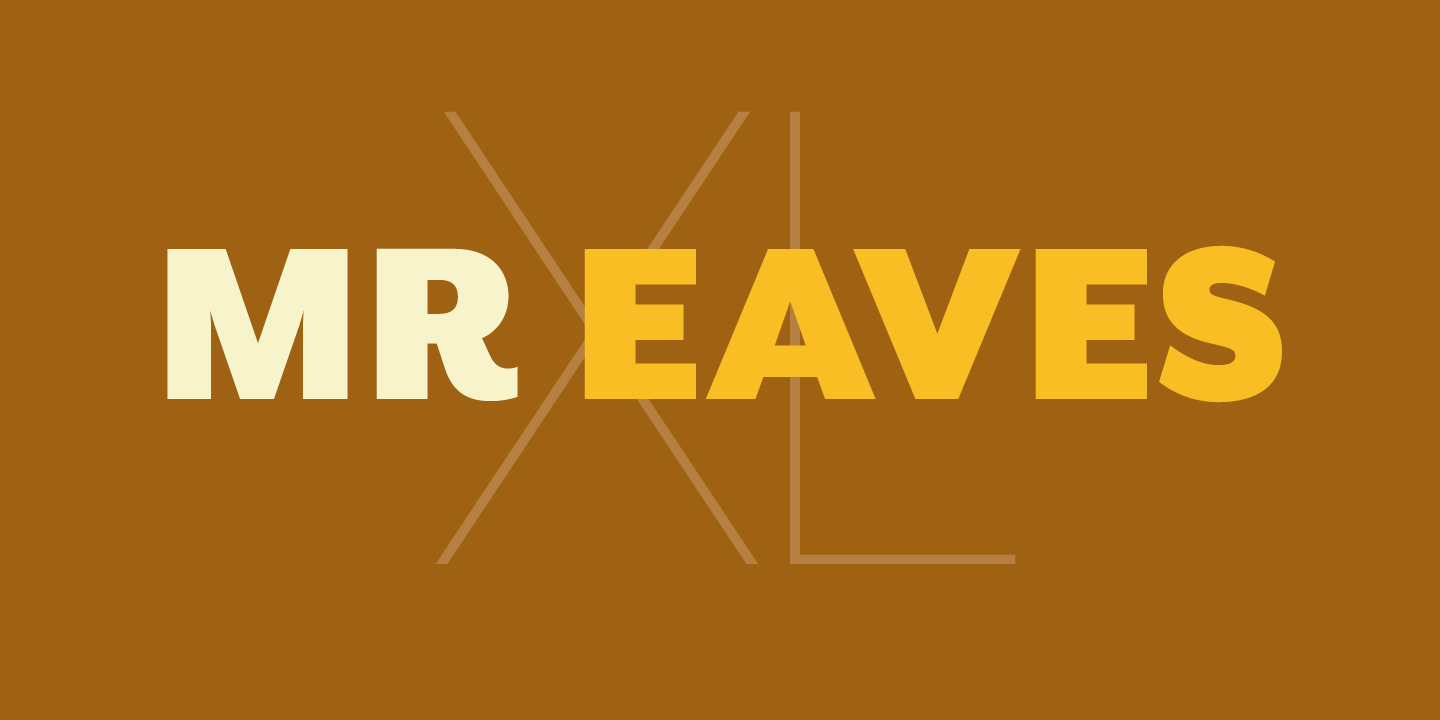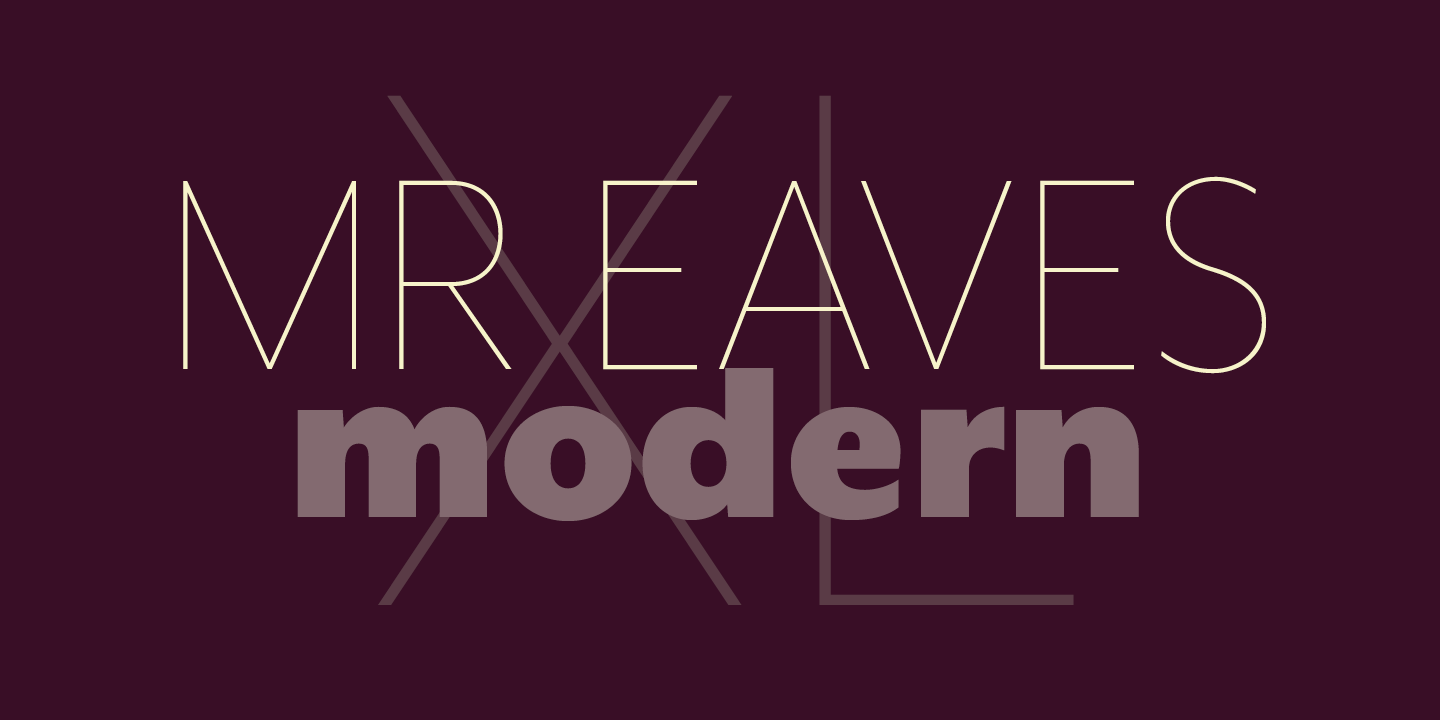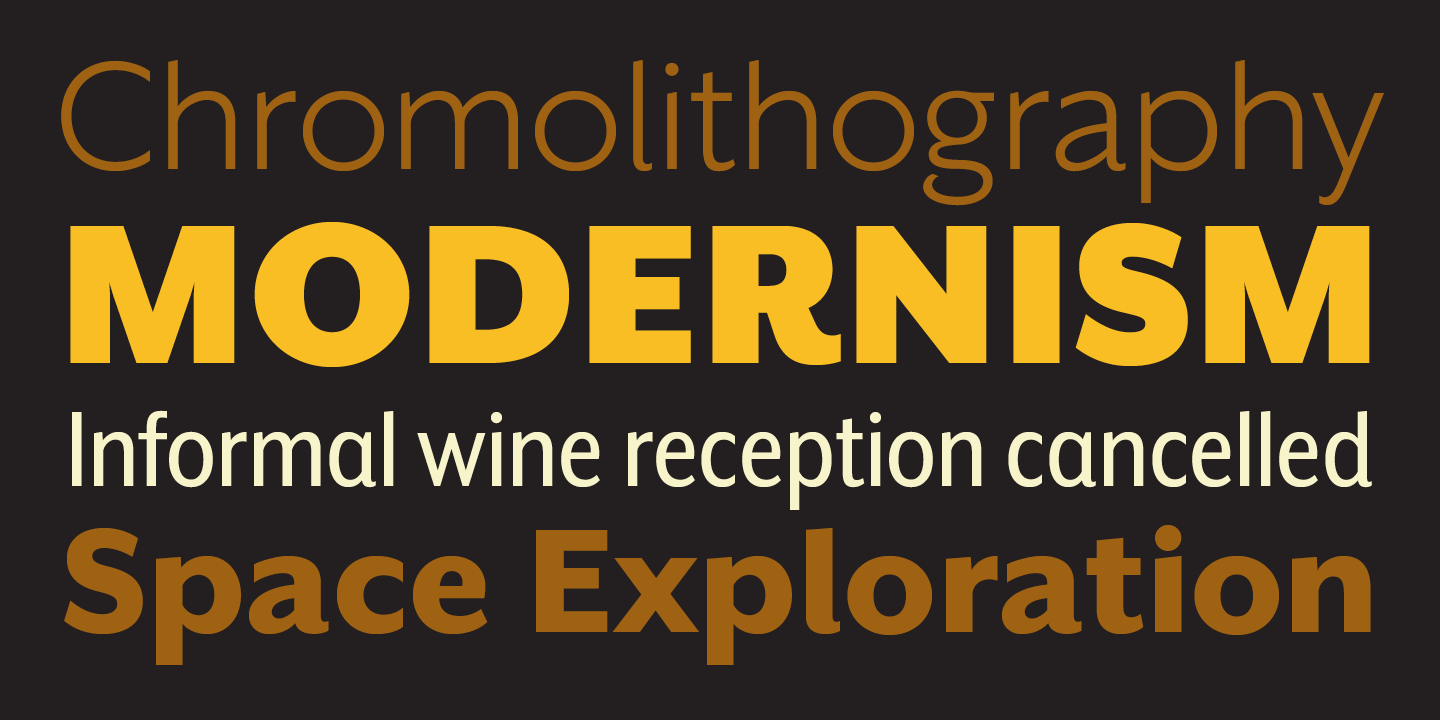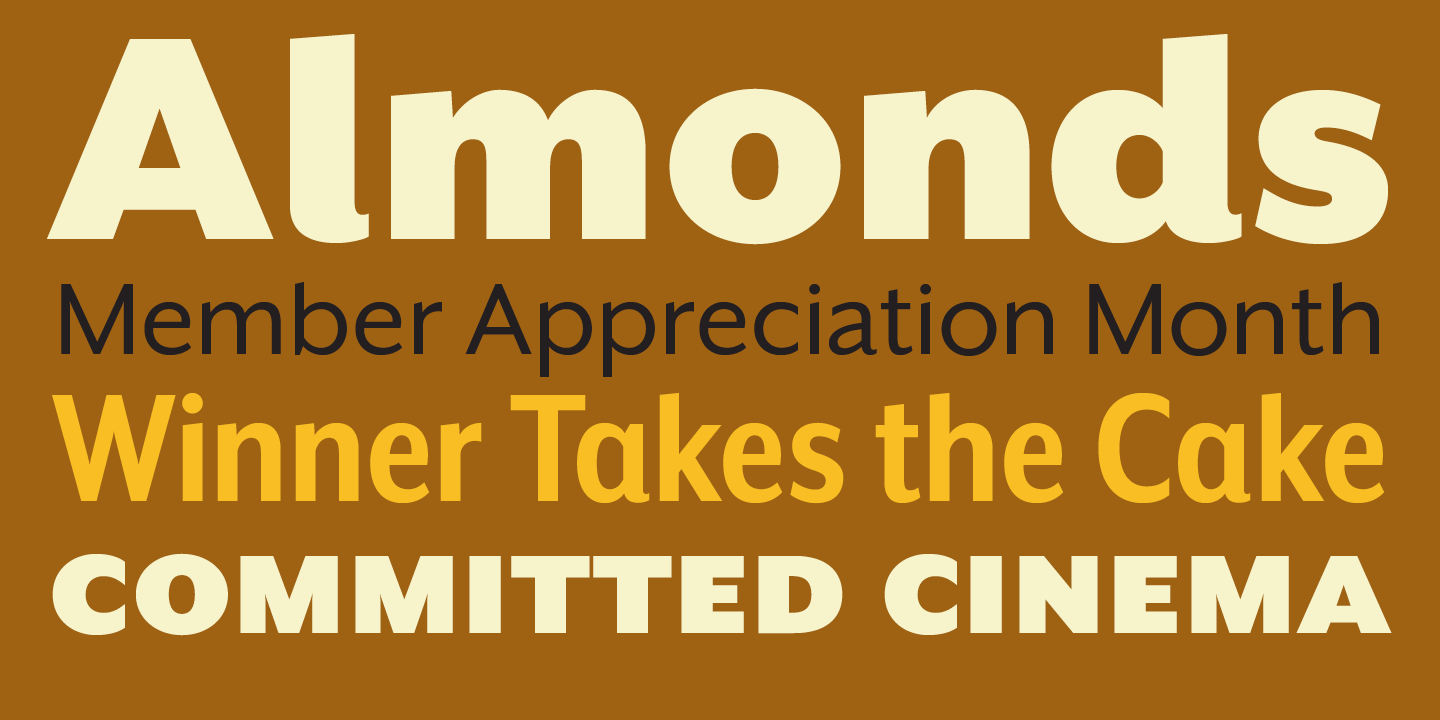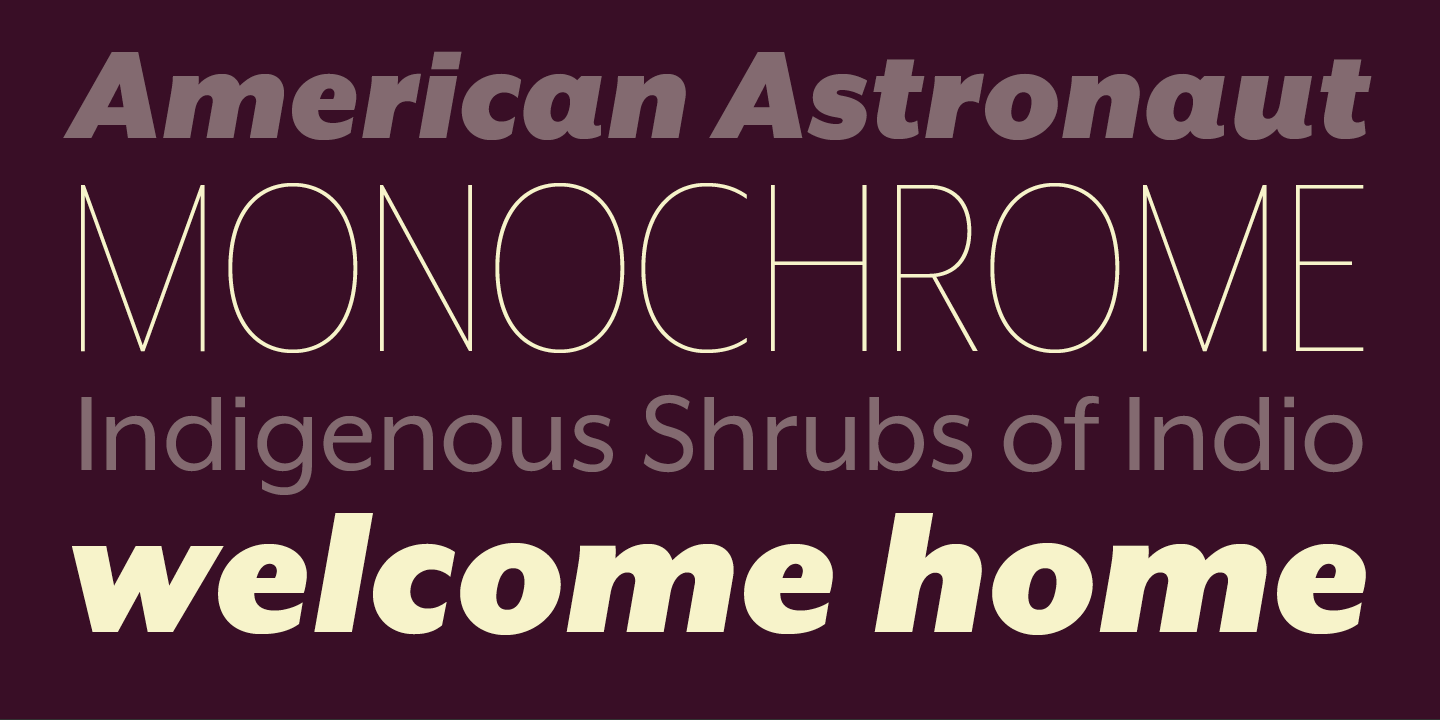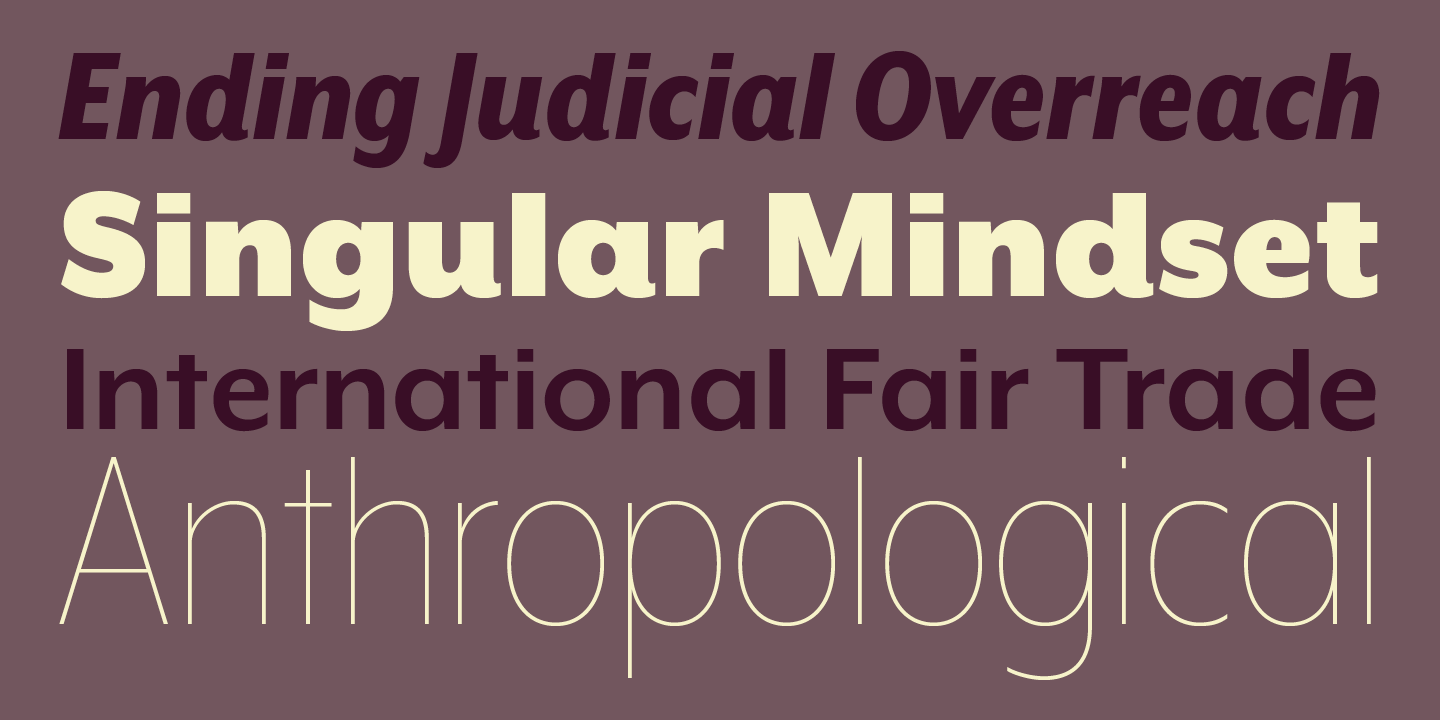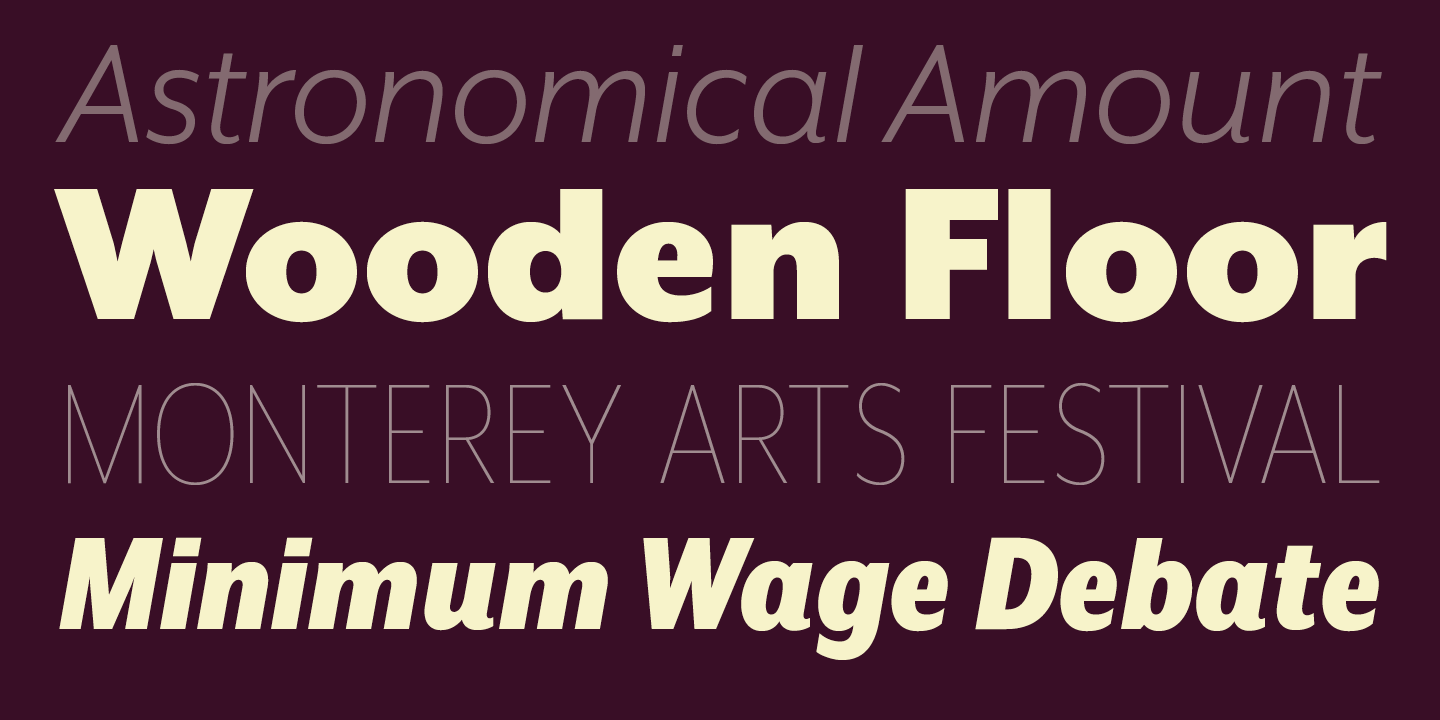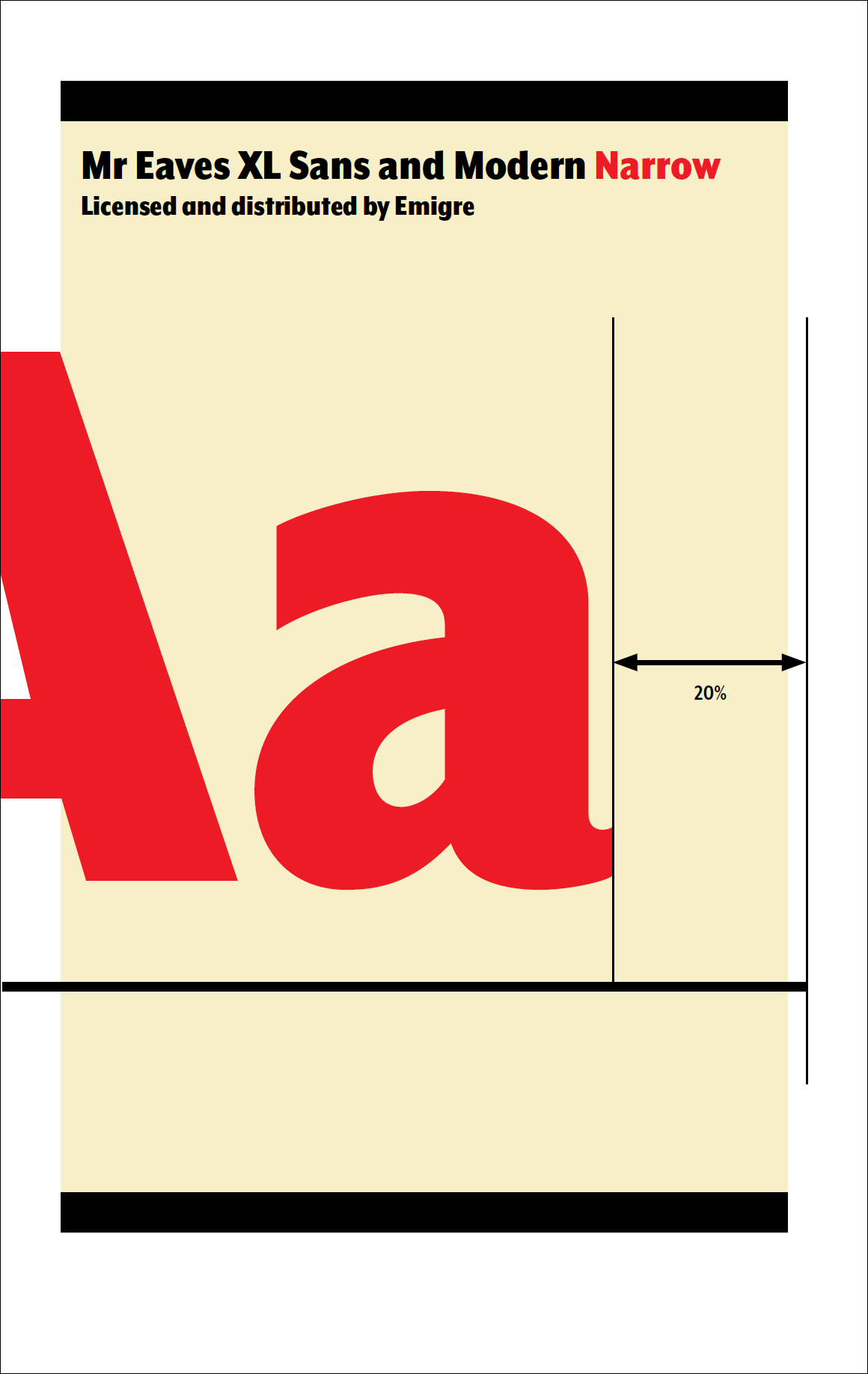
Mr Eaves XL Sans, Modern & Narrow
Designed by Zuzana Licko in 2009. More...
This XL version of Mr Eaves completes the fourth quadrant of the Mrs Eaves and Mr Eaves families.
Mr Eaves XL Sans features a larger x-height than Mr Eaves Sans with shorter ascenders and descenders and overall tighter spacing. Mr Eaves XL allows for a wide variety of uses and is perfectly suitable for lengthy text settings. The larger x-height also maintains superior readability at smaller point sizes.
Like the Sans, the XL Sans version relates most directly to the serif version, noticeably in the roman lower case letters a, e, and g, as well as in subtle details such as the angled lead-in strokes, the counter forms of the b, d, p, and q, and the flared leg of the capital R, and the tail of the Q.
The matching Modern family provides an overall less humanistic look, with simpler and more geometric-looking shapes, most noticeably in the squared-off terminals and symmetric lower case counters. This family has moved furthest from its roots, yet still contains some of Mrs Eaves’ DNA. The Modern Italic is free of tails, and overall the Modern exhibits more repetition of forms, projecting a cleaner look.
Mr Eaves XL Sans and XL Modern feature four weights with accompanying italics, small caps and alternate characters.